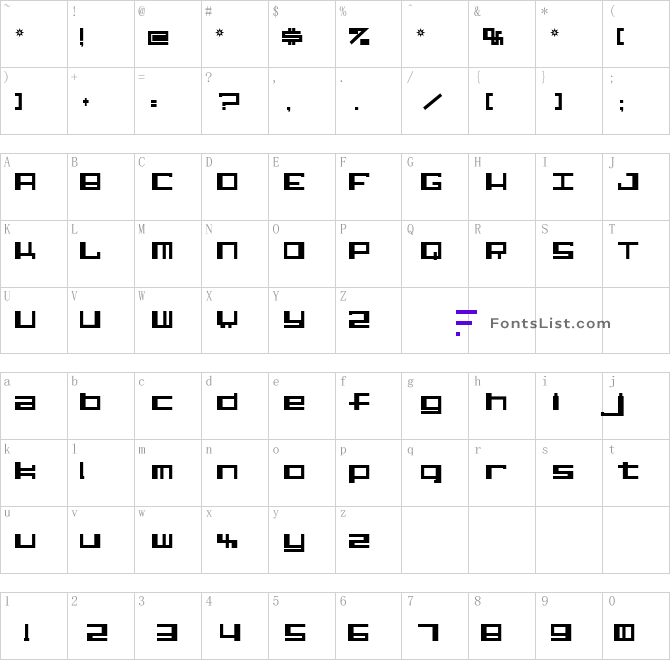
- Font Name:Alphastep
Alphastep.ttf is a very beautiful artistic font, Alphastep.ttf is widely used in the design and printing of various books and pictures,Alphastep.ttf has a strong visual impact,Alphastep.ttf is a commonly used font in newspapers, magazines and books, and is used in posters, e-commerce Poster design, store design, logo design, font design and other fields.Alphastep.